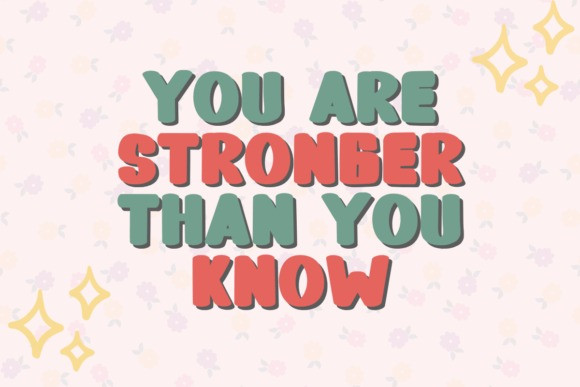
Akika Playful Font
Akika Playful Font, is a cool, bold display font. Add this bold font to your design and see how it brings it to life!. Get inspired by her unique and beautiful style and add it to your favorite designs!